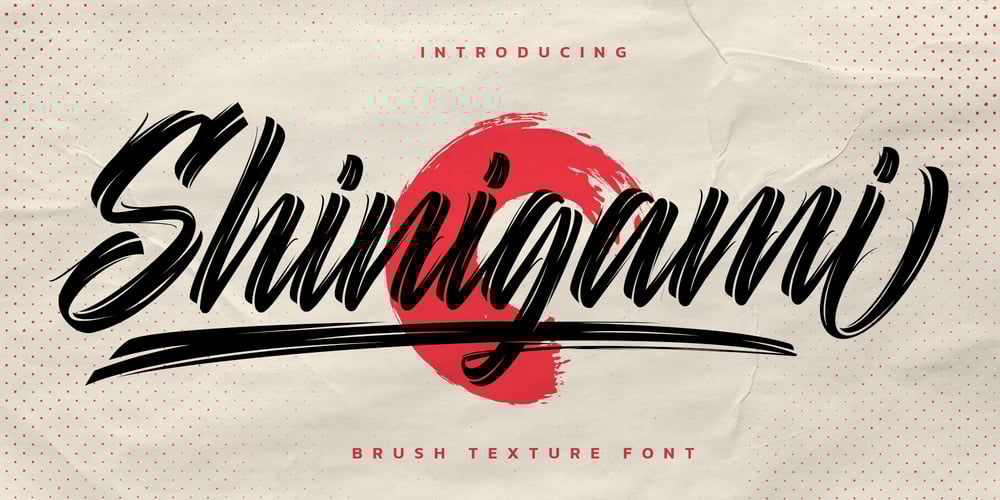
Shinigami Font Family was designed by Hamber Perdiansyah and published by Hoperative Design. Shinigami contains 1 styles and family package options. Shinigami is modern brush script font. It has a classy, elegant and modern look that can be used for T-Shirt, branding, invitations, Poster, wedding designs, social media posts, and much more!Shinigami Features : Ligature Stylistic Alternates Swash PUA encoded which means you can access all glyphs Multilingual Support